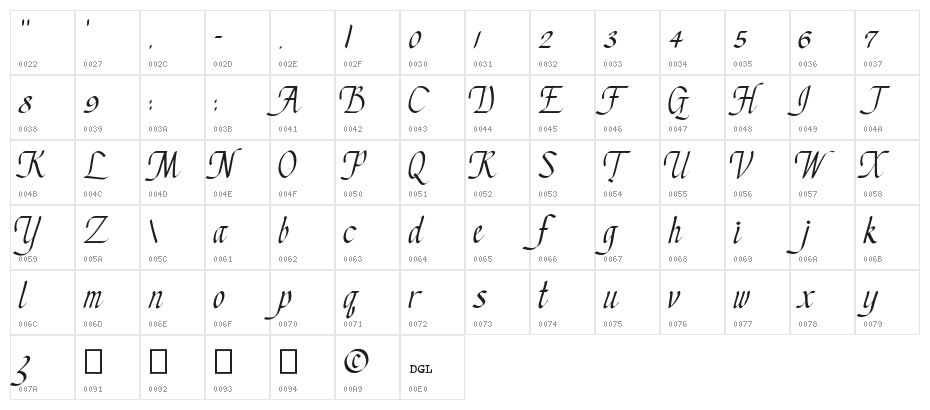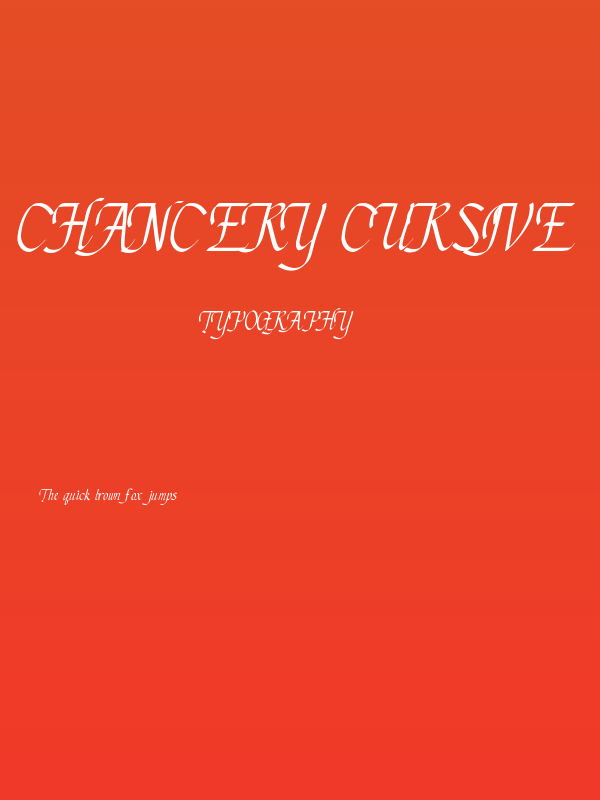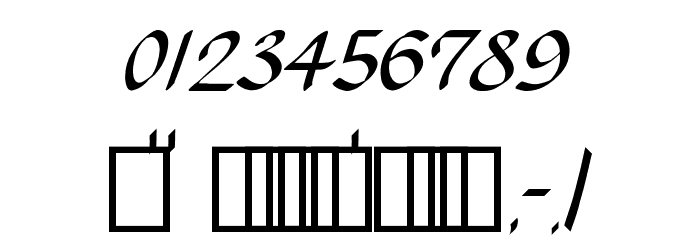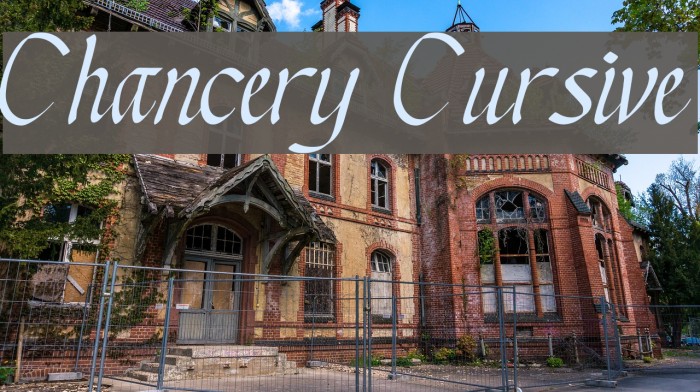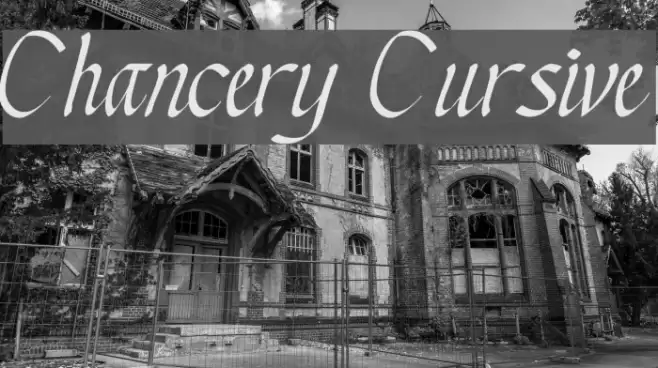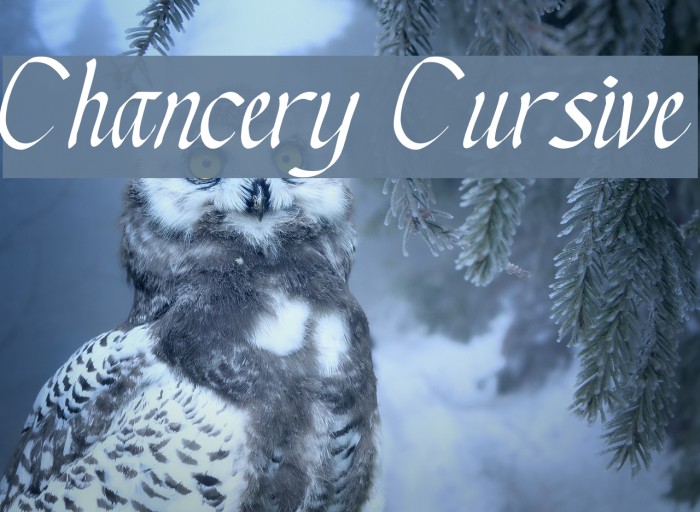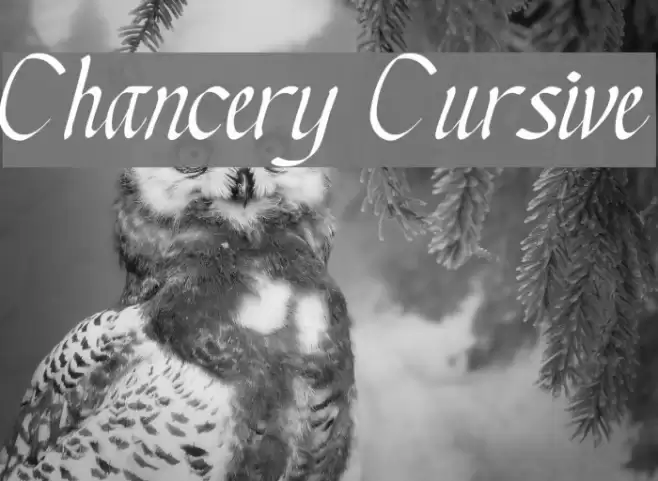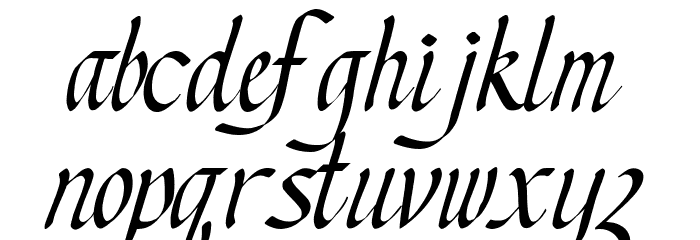
Chancery Cursive Font
| 用途 | Headlines, Invitations, Decorative text |
| おすすめプロジェクト | Ideal for wedding invitations, formal event programs, elegant branding, and decorative certificates. |